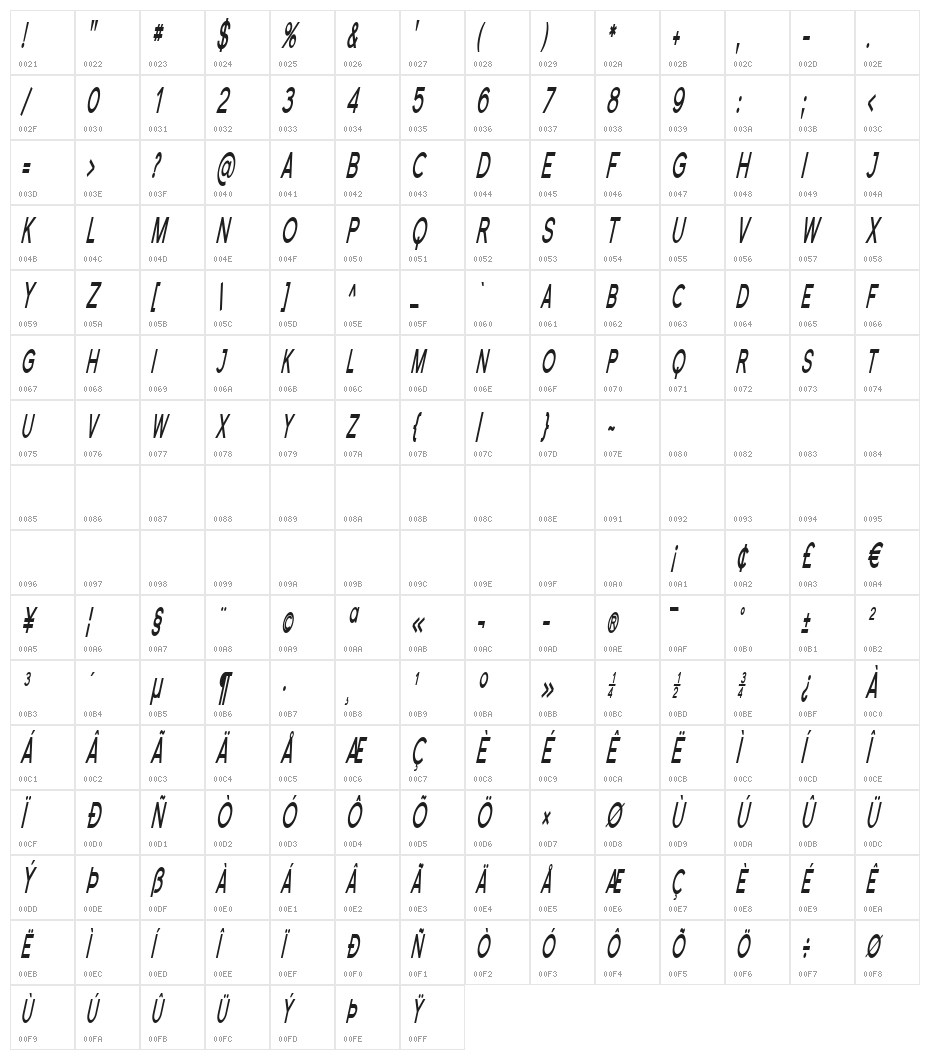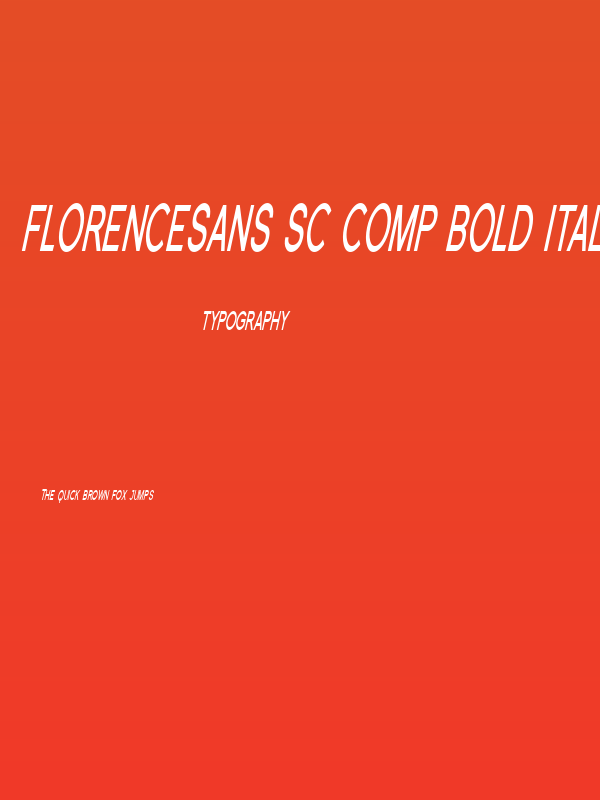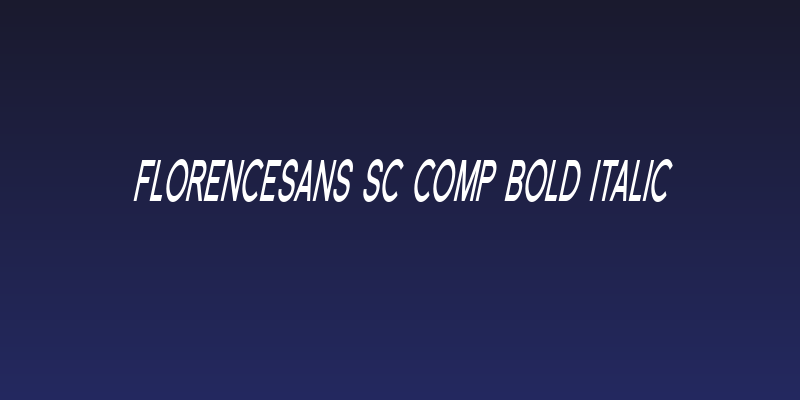
Florencesans SC Comp Bold Italic Font
Florencesans SC Comp Bold Italic Description
This font features a bold and italicized style with a condensed width, giving it a strong and dynamic appearance. The characters are slanted, adding a sense of motion and urgency. The strokes are thick and consistent, providing a uniform look across all letters and numbers. The uppercase and lowercase letters maintain a cohesive design, with sharp angles and clean lines. The numerals are clear and easy to read, matching the boldness of the alphabetic characters. Special characters are included, maintaining the same bold and italicized style, making this font versatile for various uses.
| Proposed Projects | Ideal for headlines, posters, branding materials, and any project requiring a bold statement. |